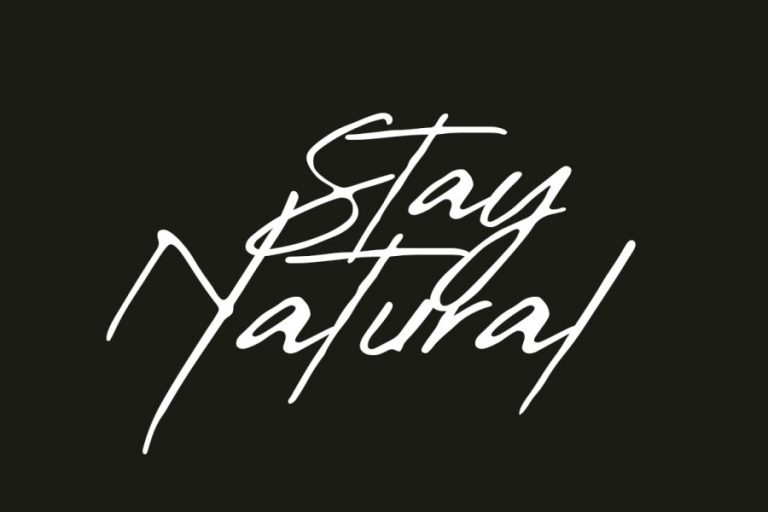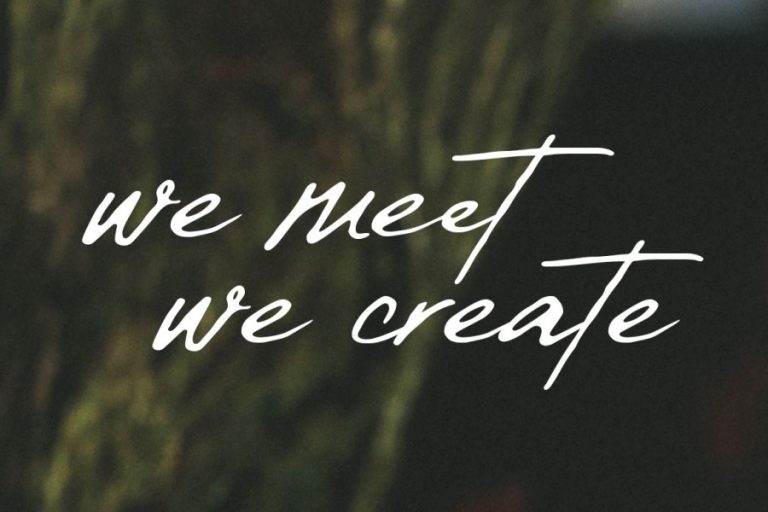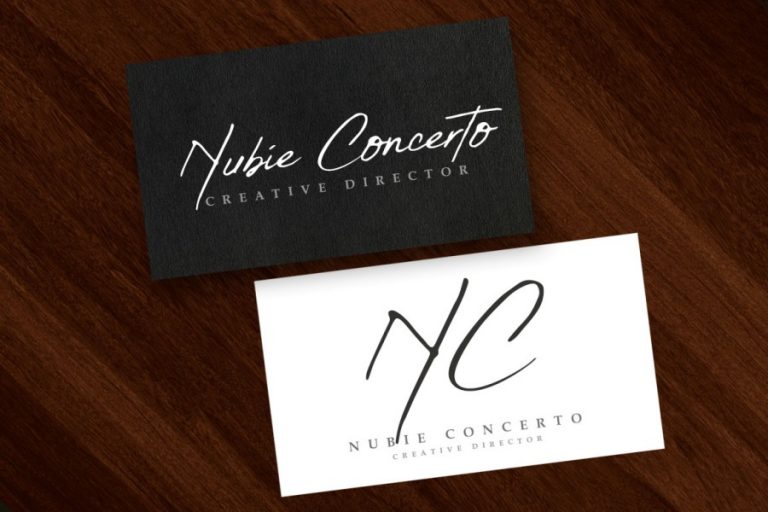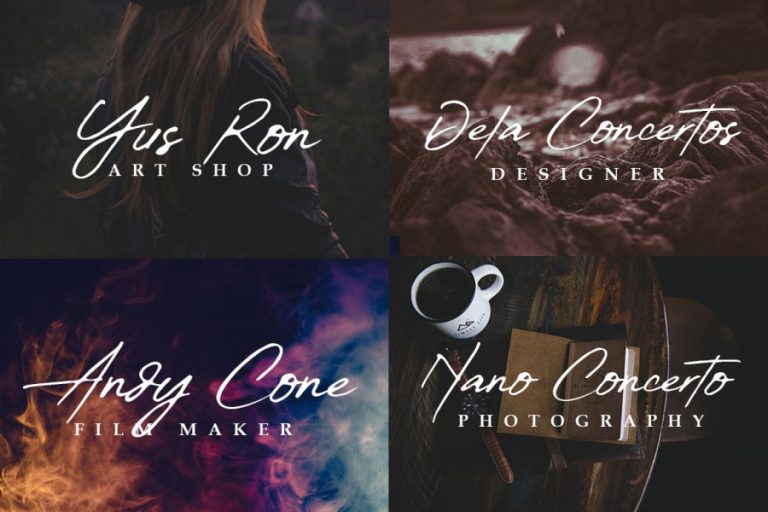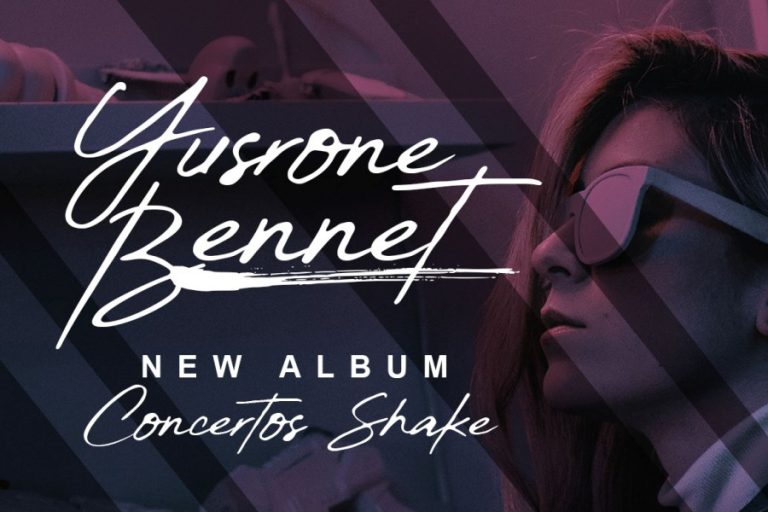
Smelling
The Smelling is very elegant font. It has multi purpose , specially for you business need like a signature, watermark, business card, and any other elegant designs.